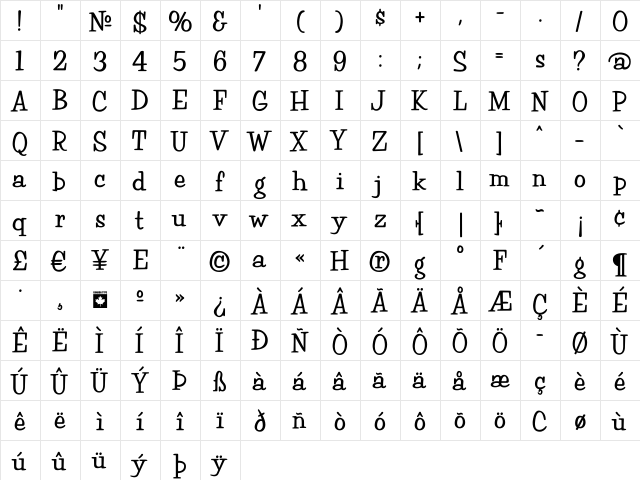
Happy Bold
Design Context for Happy Typeface
Happy offers clean, dependable letterforms without strong stylistic allegiance, making it a practical choice for designers who need flexibility. Its bold stroke weight gives it real presence on the page.